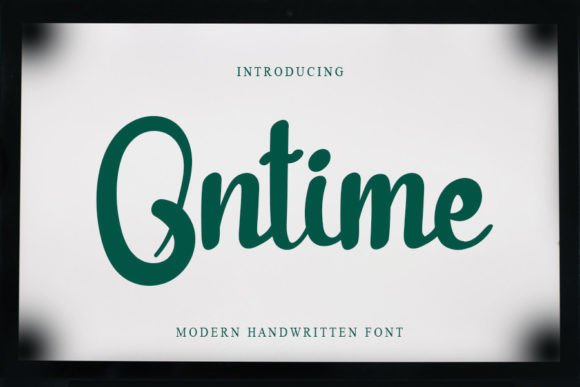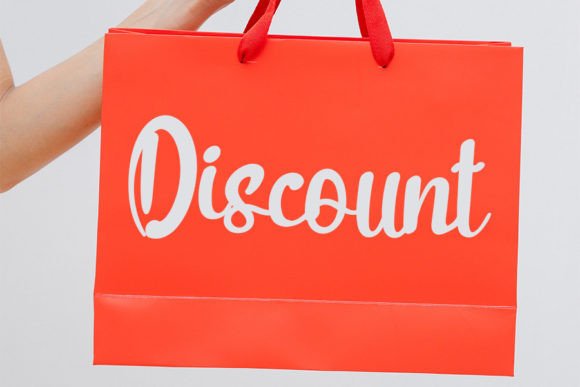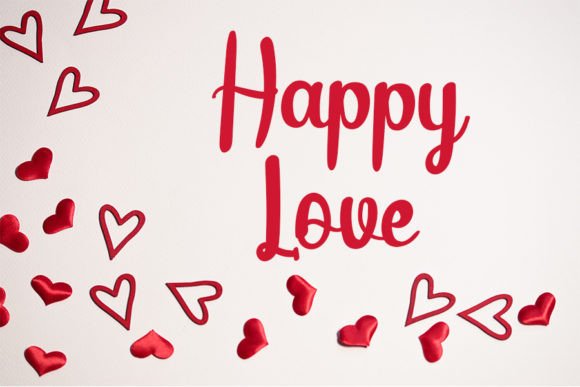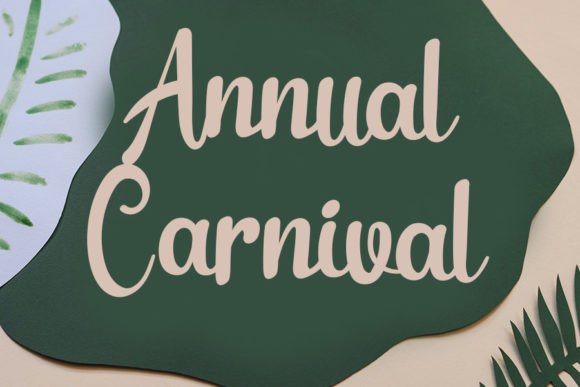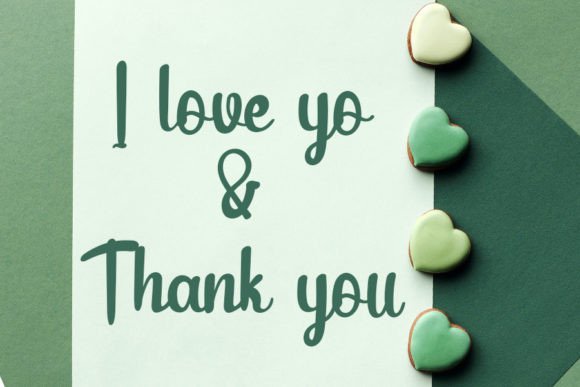
Ontime Font
About Ontime Font
“Ontime” is not just a font; it’s a friendly handwritten typeface that has been meticulously crafted to become a favorite in your design repertoire. With a balance of classy calligraphic influences and a contemporary, fresh feel, “Ontime” stands out as a versatile and approachable choice for a variety of creative projects. Let’s explore the features that make “Ontime” a font capable of elevating your designs and making them outstanding.
Friendly Handwritten Design: The term “friendly” suggests that “Ontime” brings a warm and approachable quality to its handwritten design. This friendliness makes it suitable for projects aiming to establish a personal connection with the audience, adding a touch of warmth and approachability to the text.
Classy Calligraphic Influences: “Ontime” maintains a sense of class and elegance through its calligraphic influences. This quality makes it a suitable choice for projects that require a touch of sophistication. The font becomes a versatile tool that seamlessly combines casual and refined aesthetics.
Contemporary and Fresh Feel: The contemporary and fresh feel of “Ontime” aligns with modern design trends. Whether used for branding, invitations, or other creative applications, the font ensures that it contributes to a current and relevant visual language, adding a contemporary touch to your designs.
Meticulously Designed: The mention of being carefully designed underscores the attention to detail that went into creating “Ontime.” Each letter is crafted with precision to ensure visual harmony and clarity, making the font not only stylish but also well-suited for a range of design applications.
Versatility for Creative Projects: “Ontime” is positioned as a font that can be a standout choice for various creative projects. Its versatility allows it to adapt seamlessly to different design contexts, ensuring that it enhances the overall aesthetic of your projects across different applications.
Making Projects Outstanding: The ultimate goal of “Ontime” is to make your creative projects outstanding. Its combination of friendly handwritten charm, classy influences, contemporary feel, and meticulous design ensures that it becomes a valuable asset for designers aiming for standout and memorable outcomes.
In summary, “Ontime” is more than just a font; it’s a design tool that brings a friendly, classy, and contemporary handwritten aesthetic to your projects. With meticulous design and versatile applications, “Ontime” has the potential to make your creative endeavors outstanding, capturing attention and leaving a lasting impression.